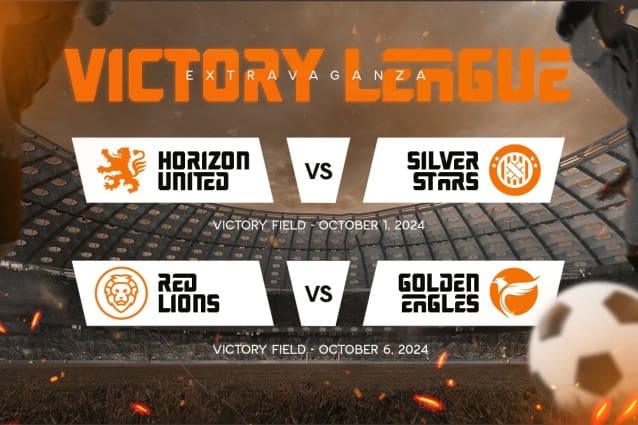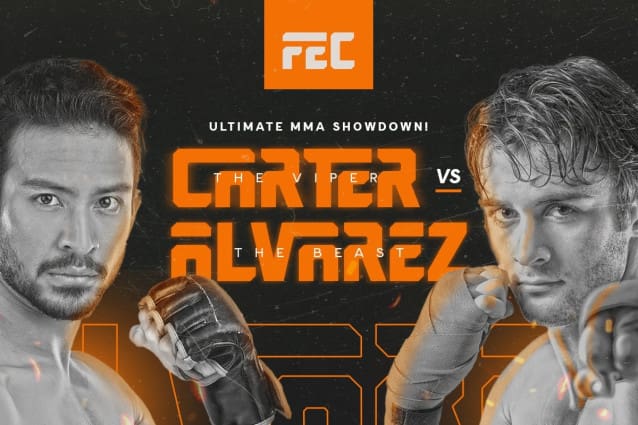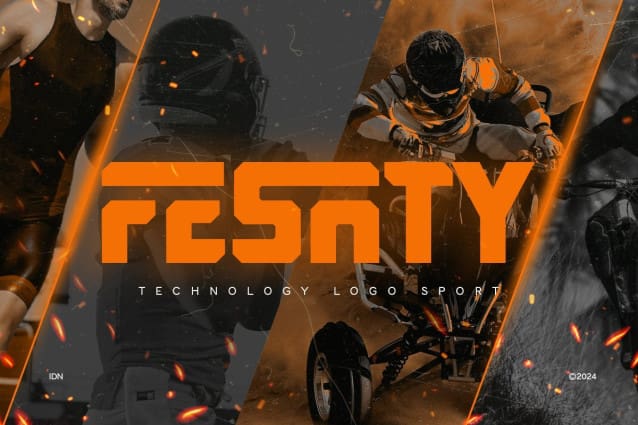
Fesaty Font
Fesaty Font is a sports technology logo font that brings a bold and futuristic touch to your designs. With its clean lines and dynamic structure, it is perfect for branding in the sports, technology and digital industries. Whether you are designing logos, sportswear or tech products, Fesaty offers a strong and modern aesthetic that attracts attention.
Inspired by the fast-paced world of sports and cutting-edge technology, Fesaty combines clean curves with angular shapes to create a unique and energetic look. Its bold presence makes it a great choice for brands looking to leave a lasting impression with a standout logo. Elevate your branding with Fesaty Font, a font designed for those who embrace the future of sports and technology with style and innovation.